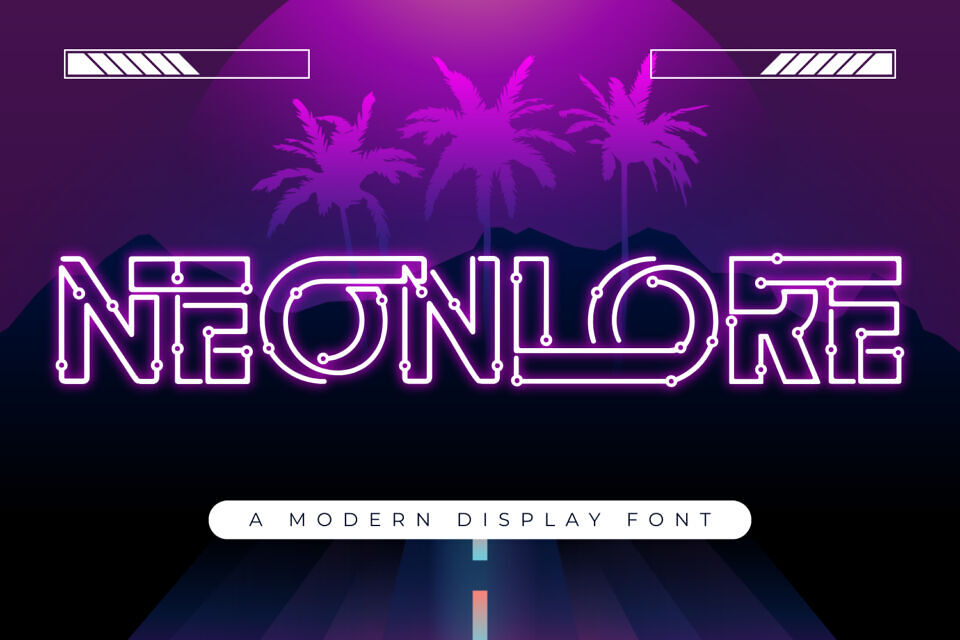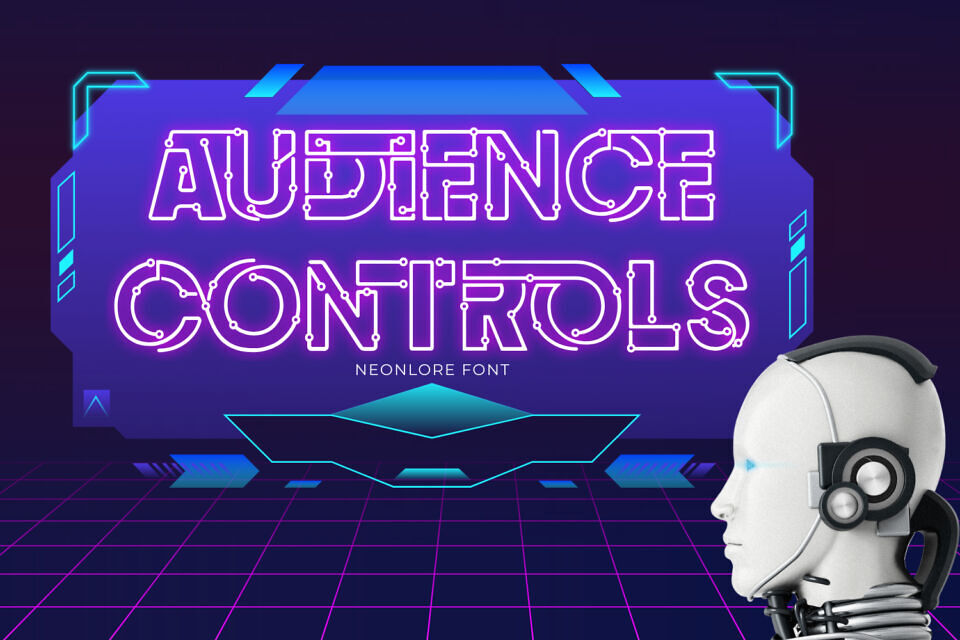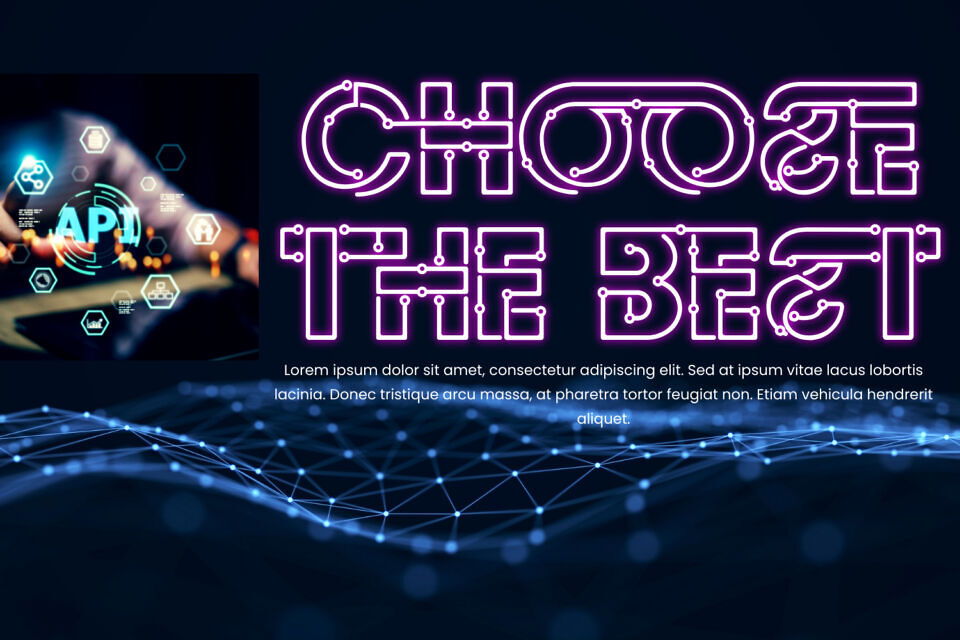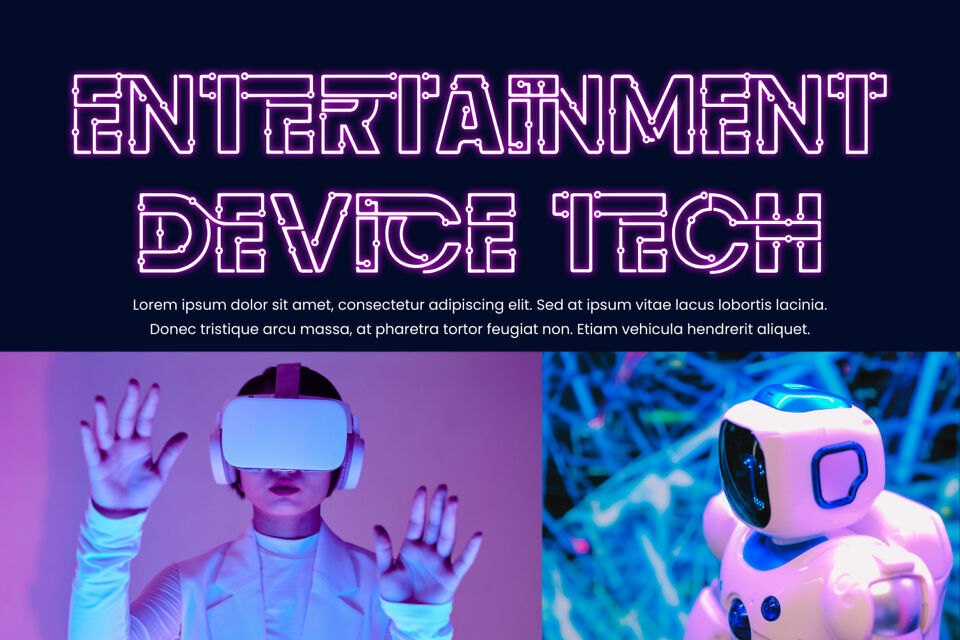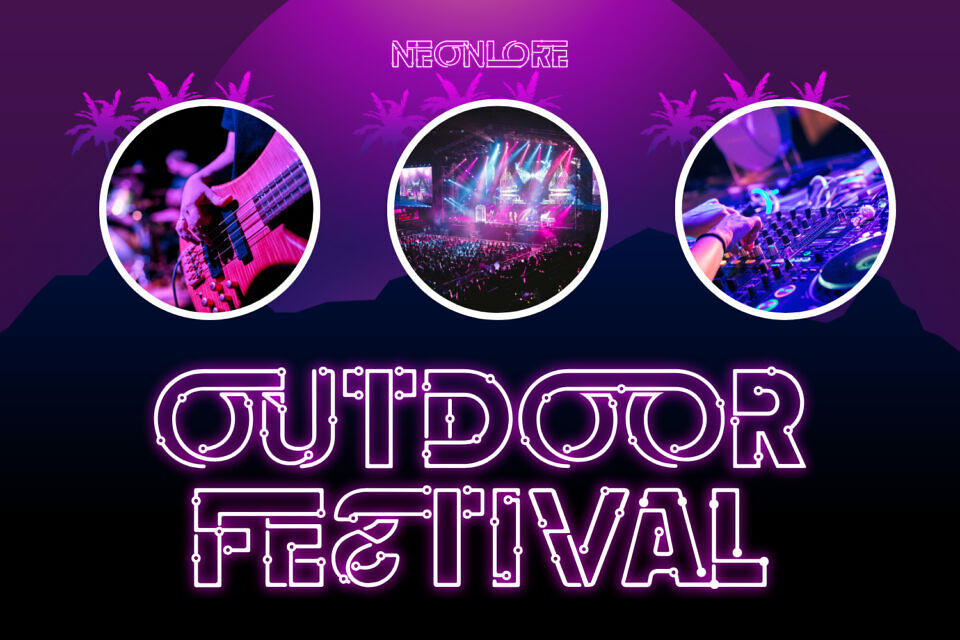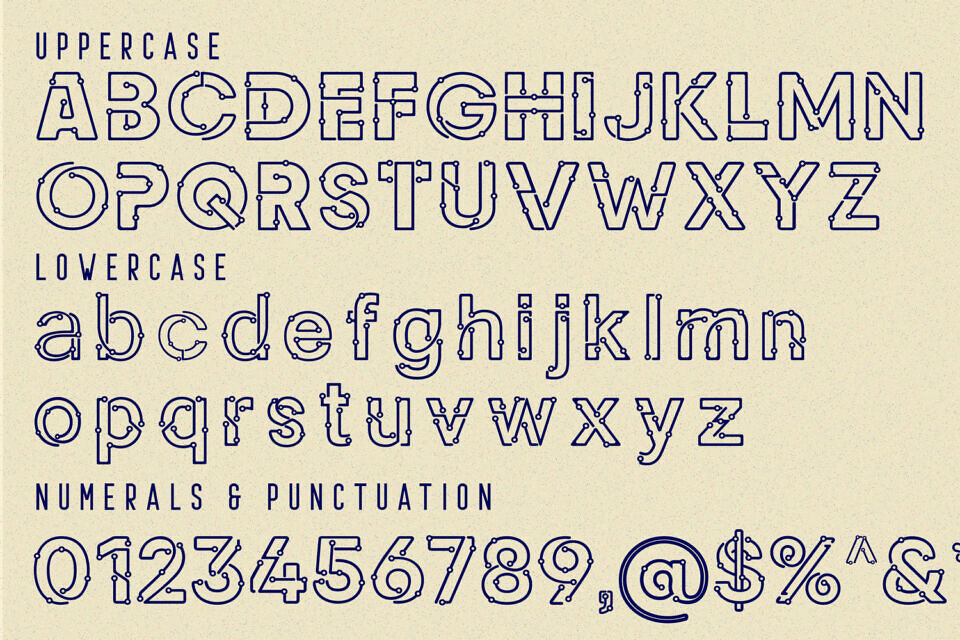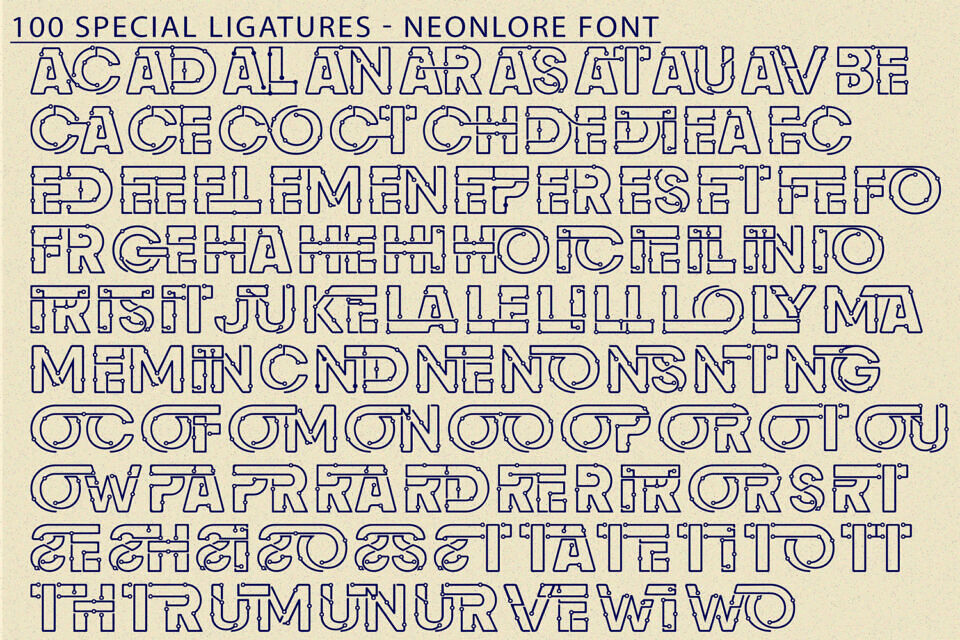
Neonlore is a Cyber Neon Display Font. Light up your designs with NEONLORE, a futuristic Cyber Neon Display Font inspired by neon lights and digital circuits.
With its glowing letterforms and tech-inspired elements, this font is the perfect choice for nightlife branding, sci-fi posters, gaming projects, synthwave graphics, and futuristic UI designs.